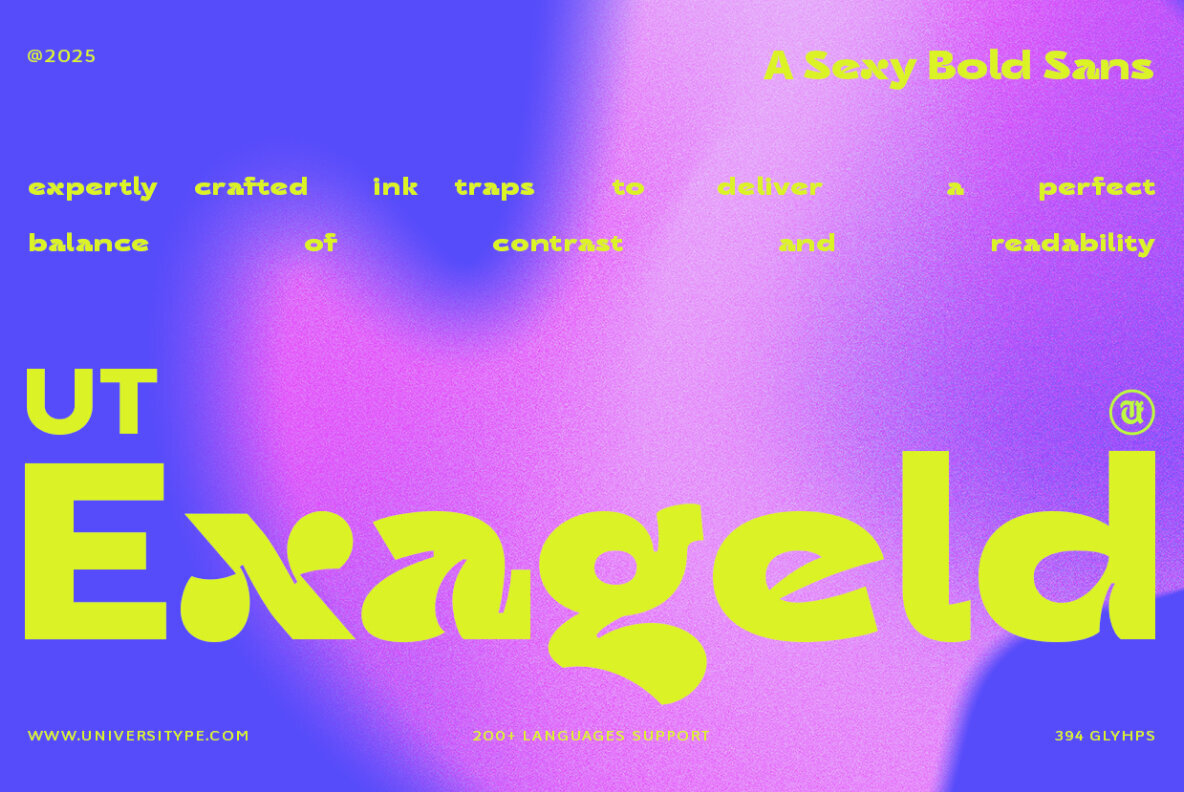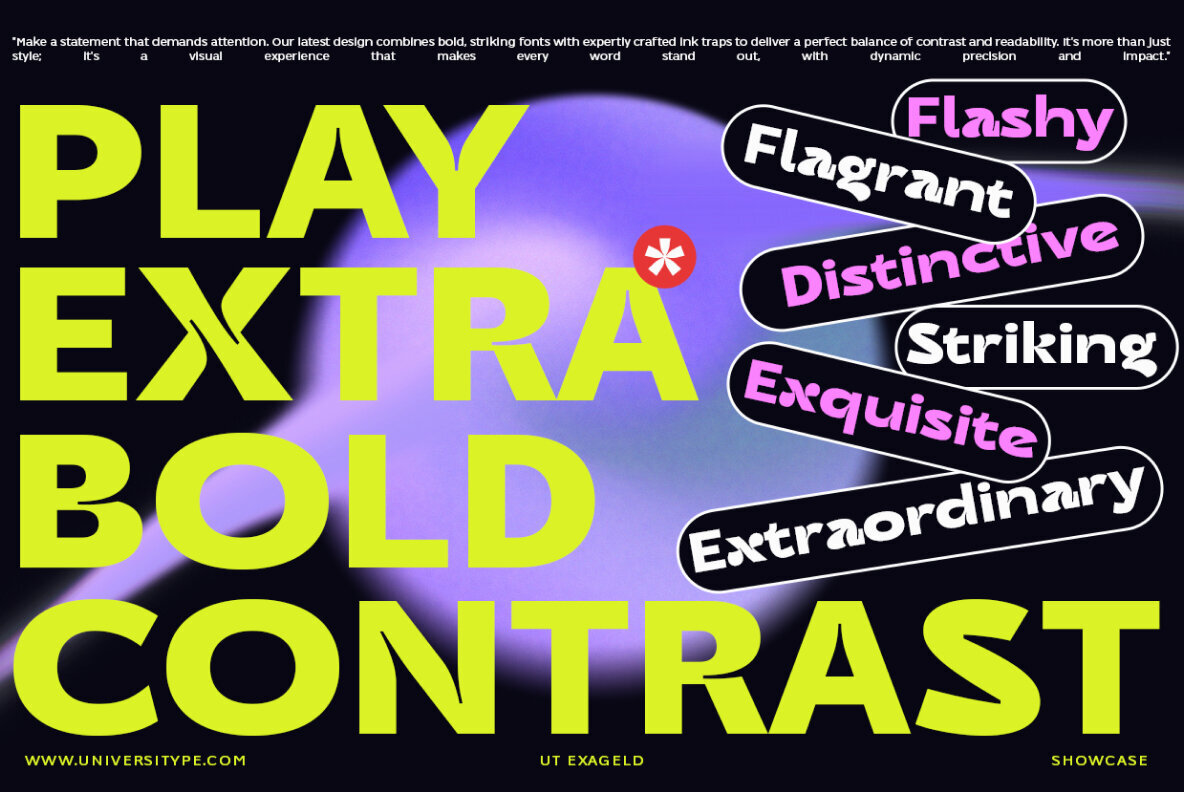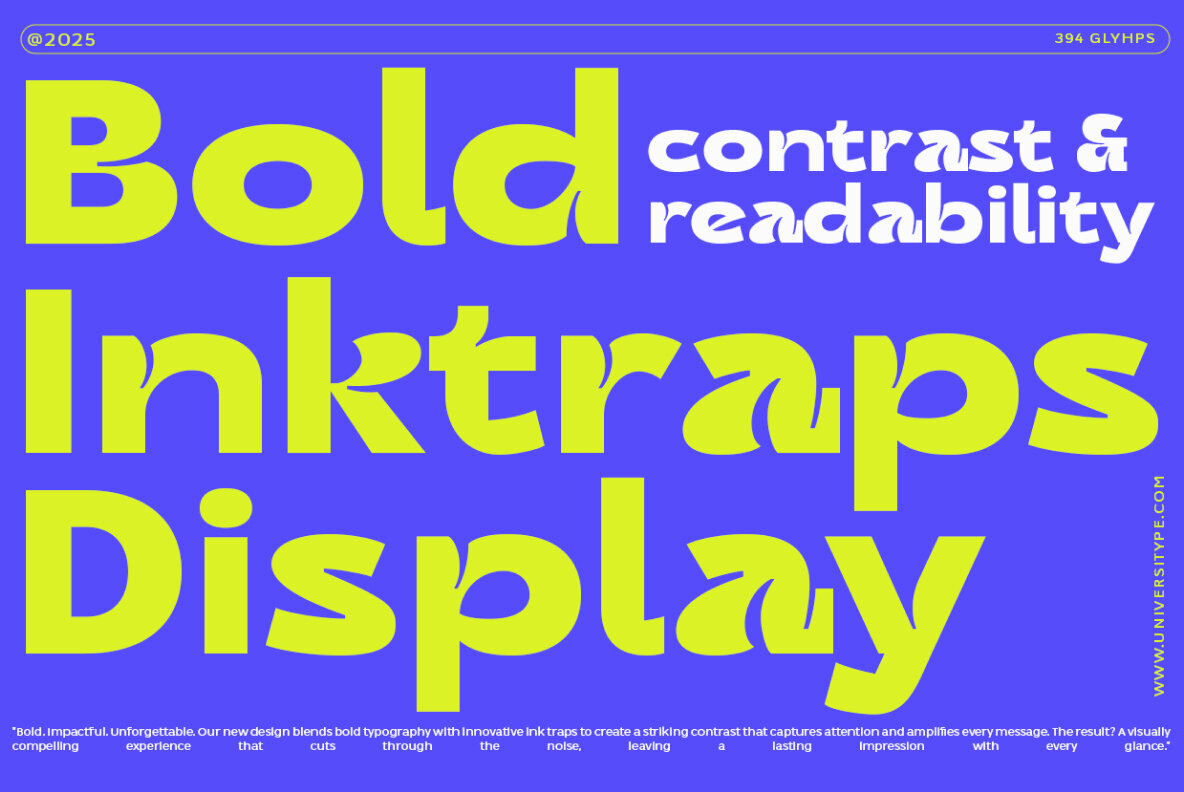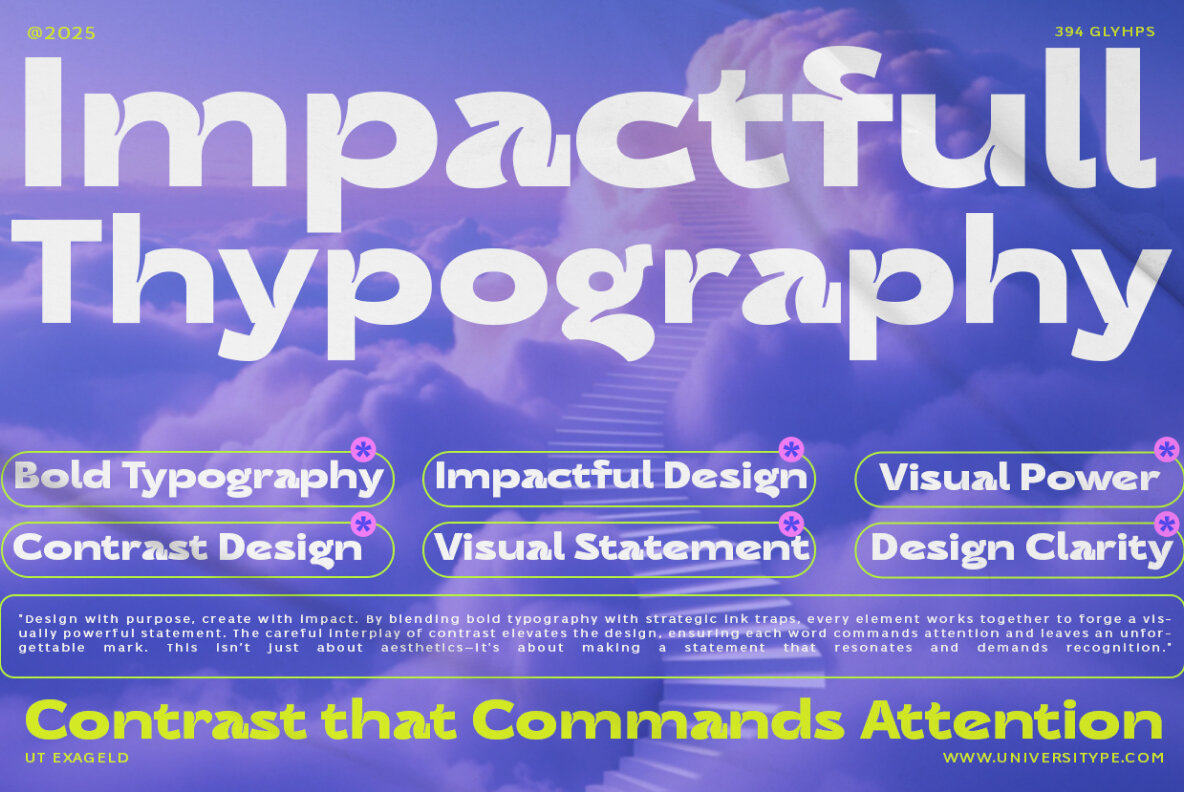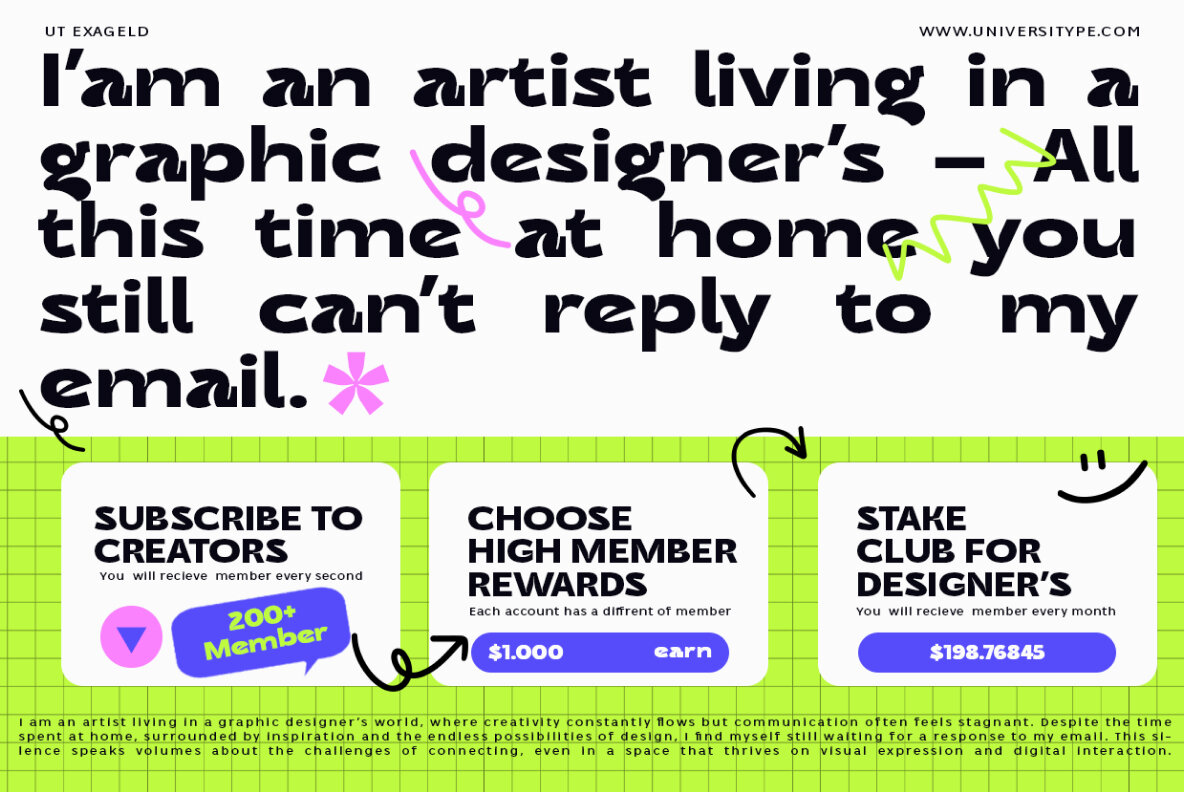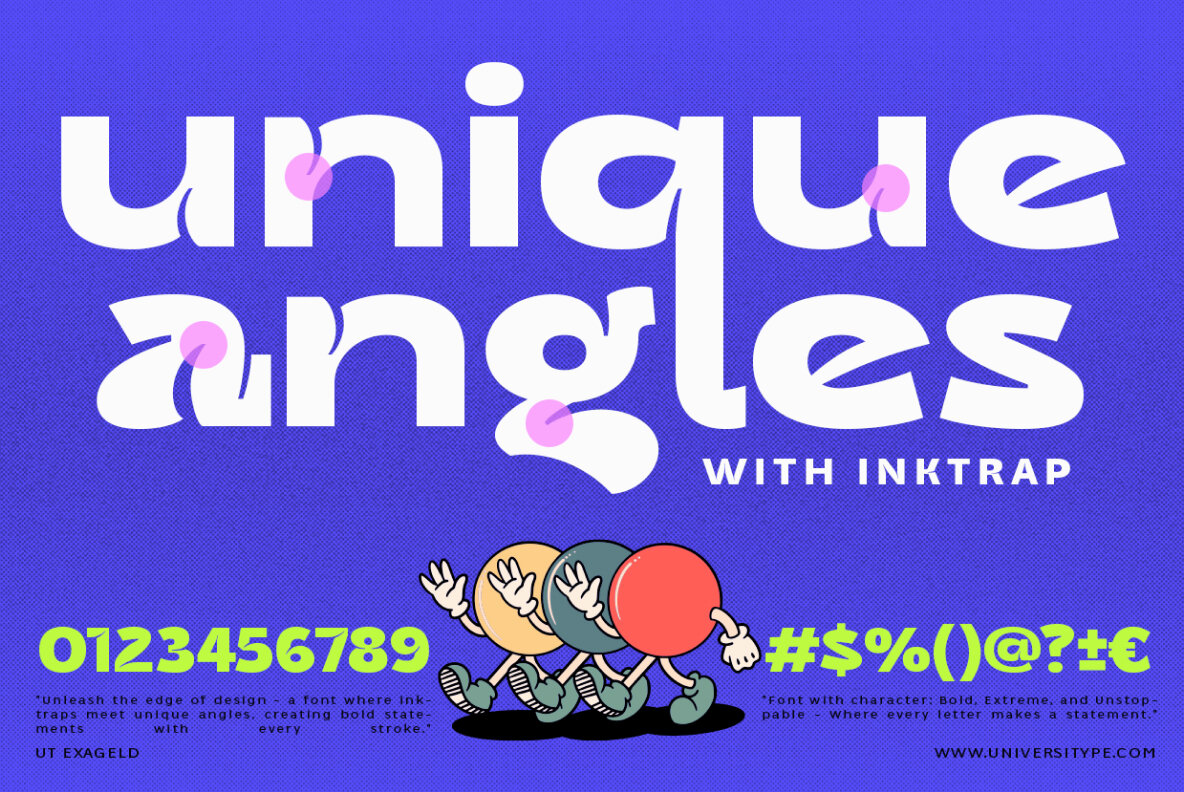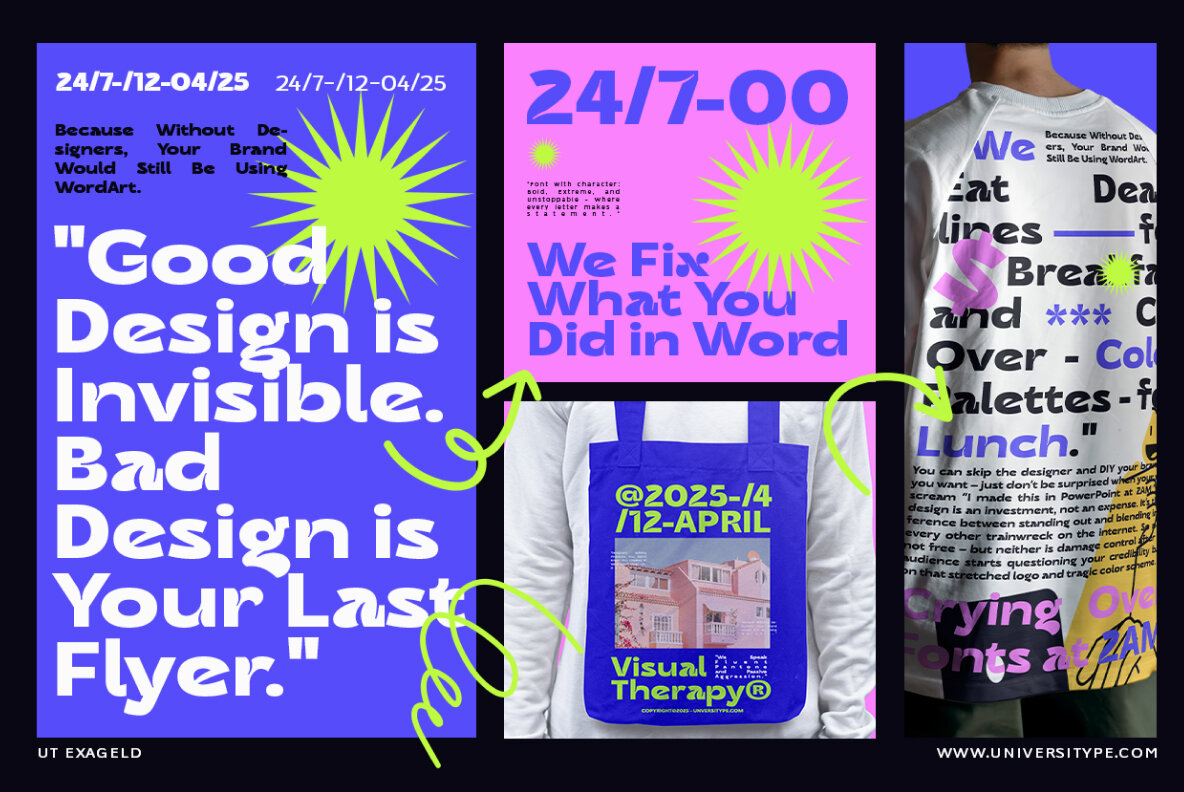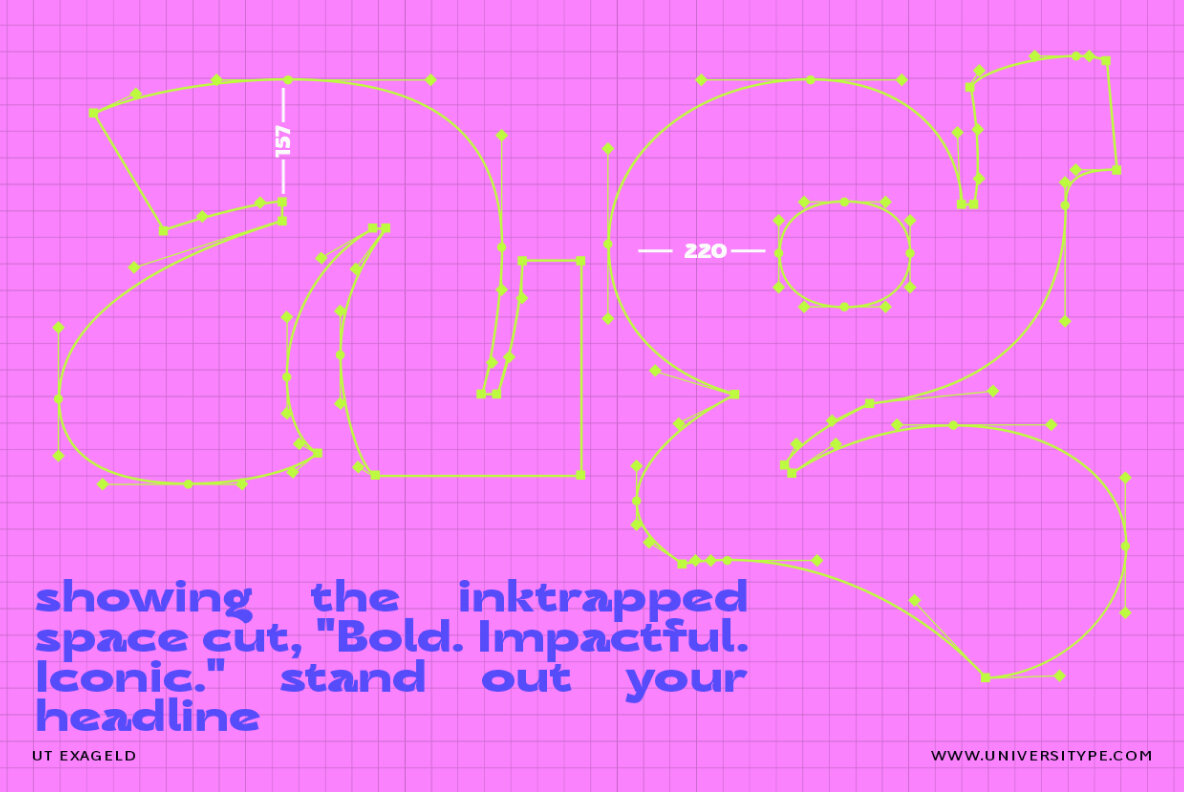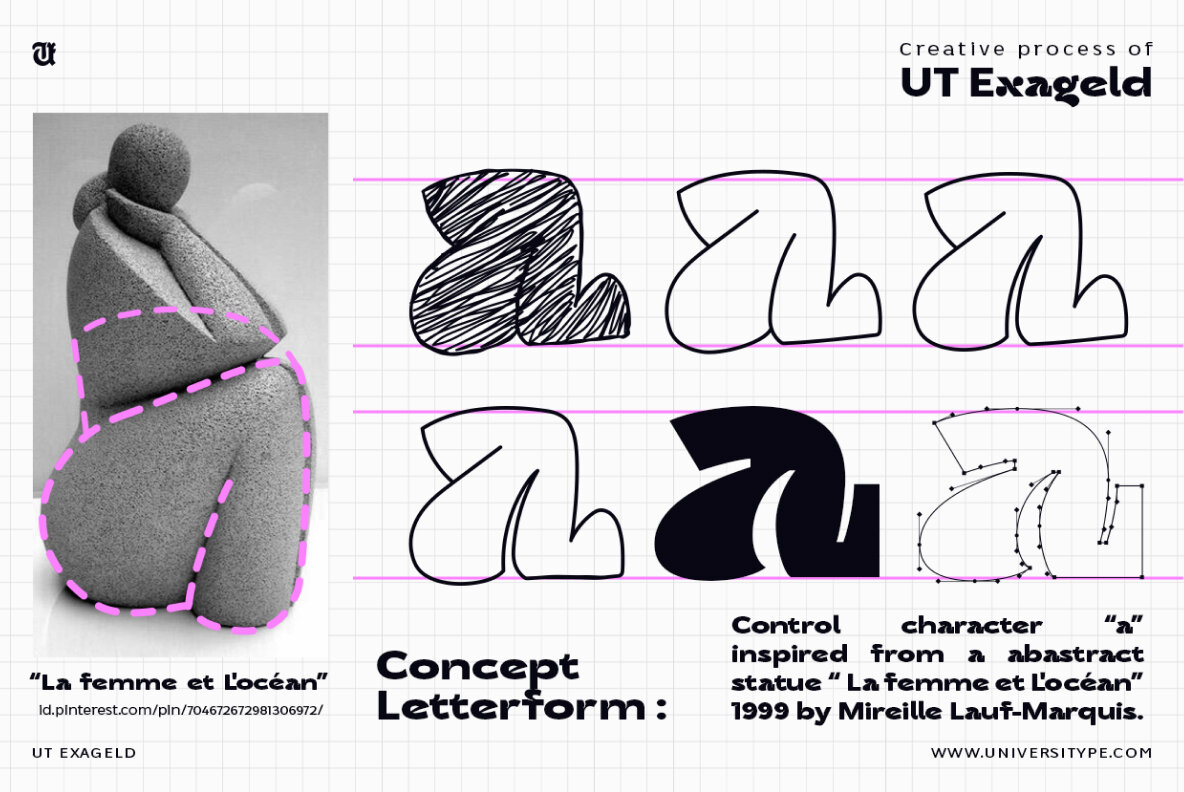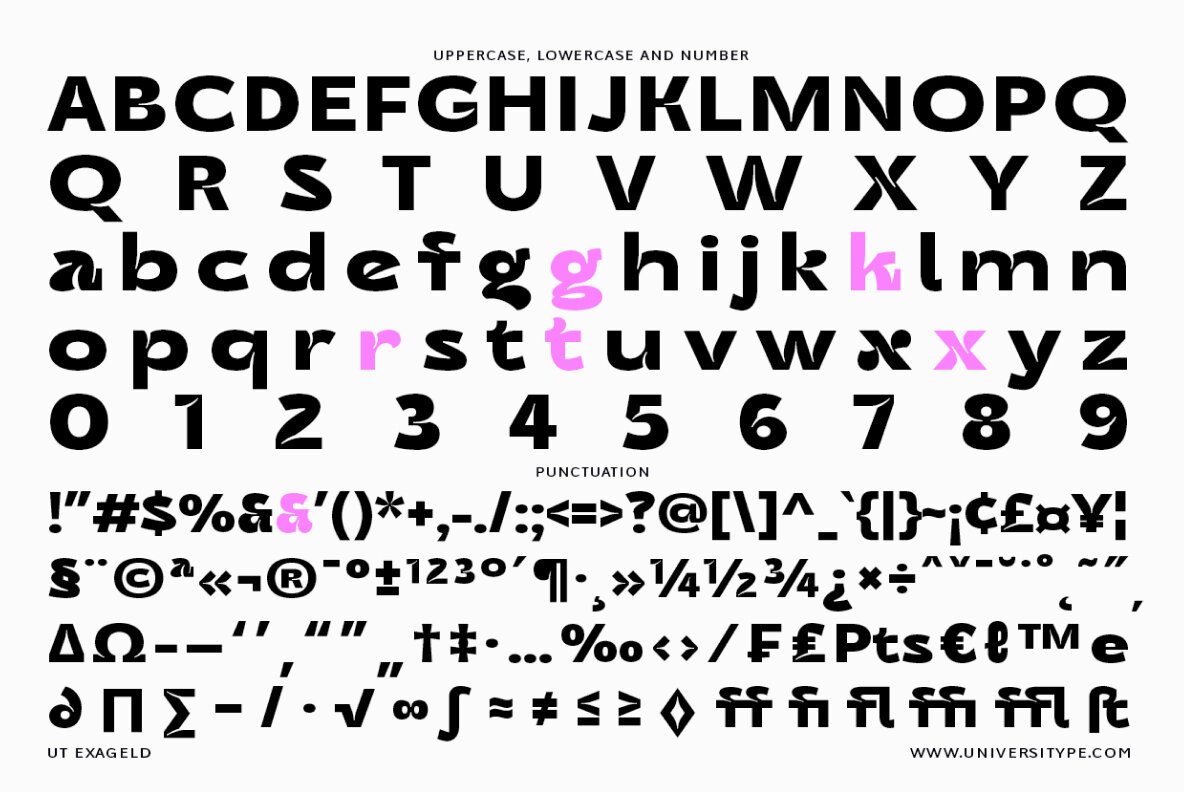
UT Exageld Font
UT Exageld Regular
UT Exageld is a bold, sexy, and versatile sans-serif font that is perfect for designers looking to make a strong visual impact. With its expertly crafted ink traps, UT Exageld delivers a perfect balance of contrast and readability, making it suitable for a wide range of applications. This font is ideal for graphic designers, typographers, and creative professionals who are looking for a modern and striking typeface to use in their projects. It is particularly well-suited for those working in branding, advertising, and editorial design. The design process includes inspiration from abstract art, such as the statue “La femme et l’océan” by Mireille Lauf-Marquis, to create unique angles and bold statements. Key Features: